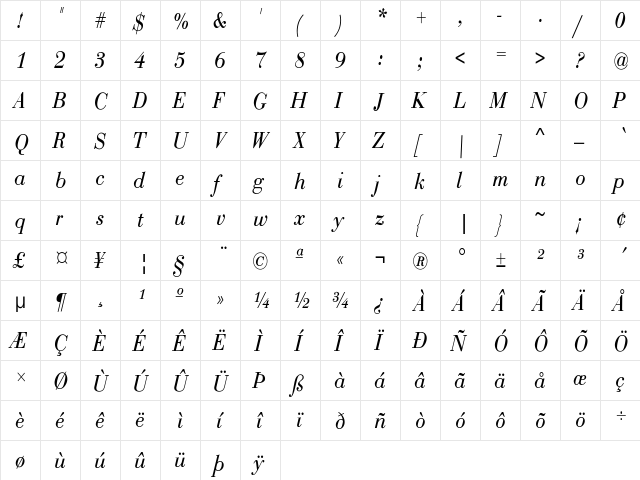
BodoniCnd-Normal-Italic Regular Font Preview
BodoniCnd-Normal-Italic Regular
Design Context for BodoniCnd-Normal-Italic Typeface
BodoniCnd-Normal-Italic is a composed and adaptable typeface that performs quietly and consistently across a wide range of design contexts. The dynamic lean of this cut emphasises speed and emphasis in any layout.
Pro Tip: Try BodoniCnd-Normal-Italic for annotation and caption copy alongside an upright companion — the contrast in angle creates a dynamic but ordered typographic system.